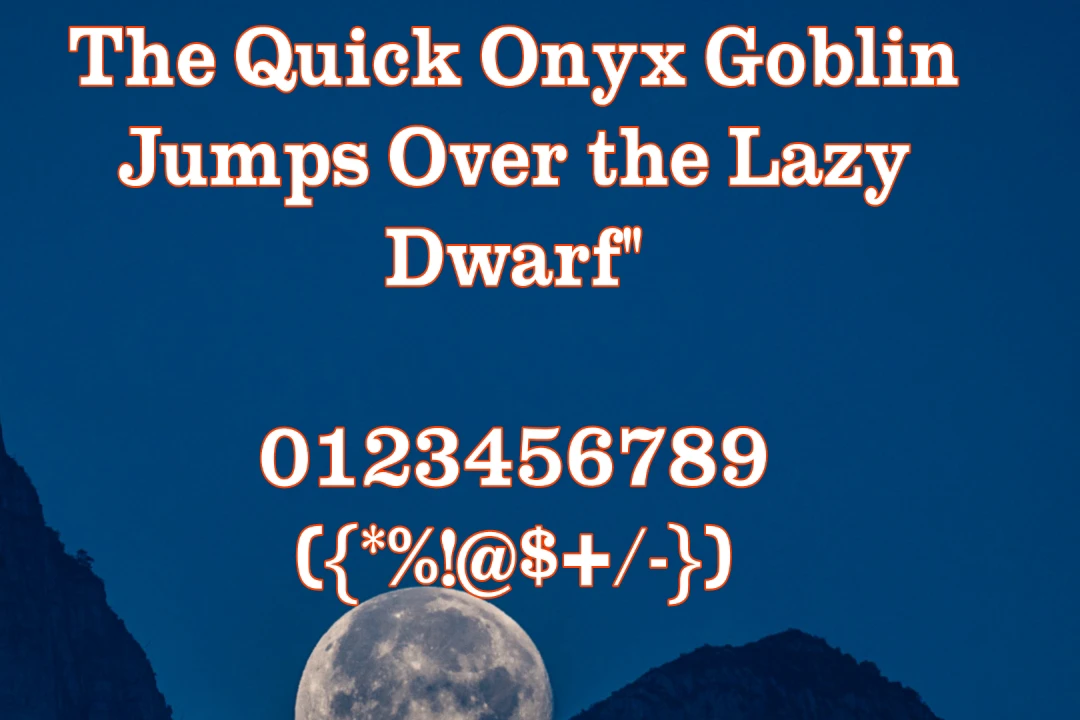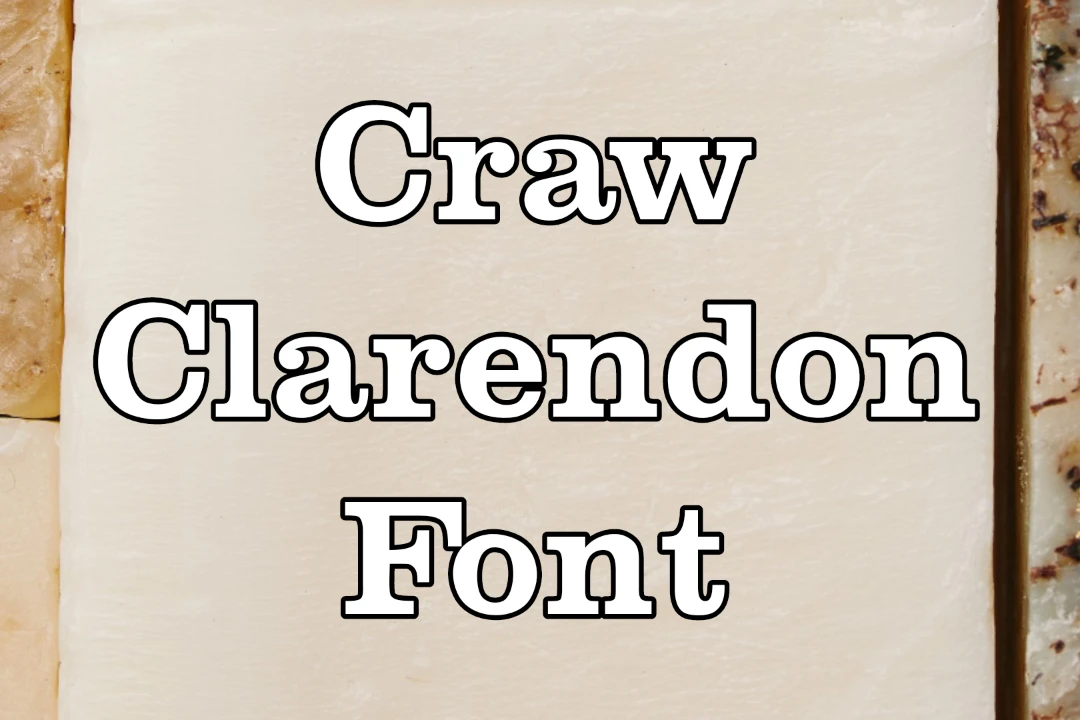
The Craw Clarendon font, designed by Freeman Craw and released by American Type Founders (ATF) in 1955, is a striking slab-serif typeface rooted in the classic Clarendon genre of 1845.
Its bold, bracketed serifs and mid-century proportions make it ideal for eye-catching headlines, branding, signage, and poster design.
Uses of Craw Clarendon Font
What is the original Clarendon font?
It is a slab-serif typeface designed by Robert Besley for the Fann Street Foundry in 1845. It is known for its bold and distinctive style, making it popular for headlines and display use.
What font is closest to Clarendon?
Fonts closest to Clarendon include Baldur font, Egyptienne, and Serifa. These fonts share similar characteristics such as thick serifs and a robust appearance.